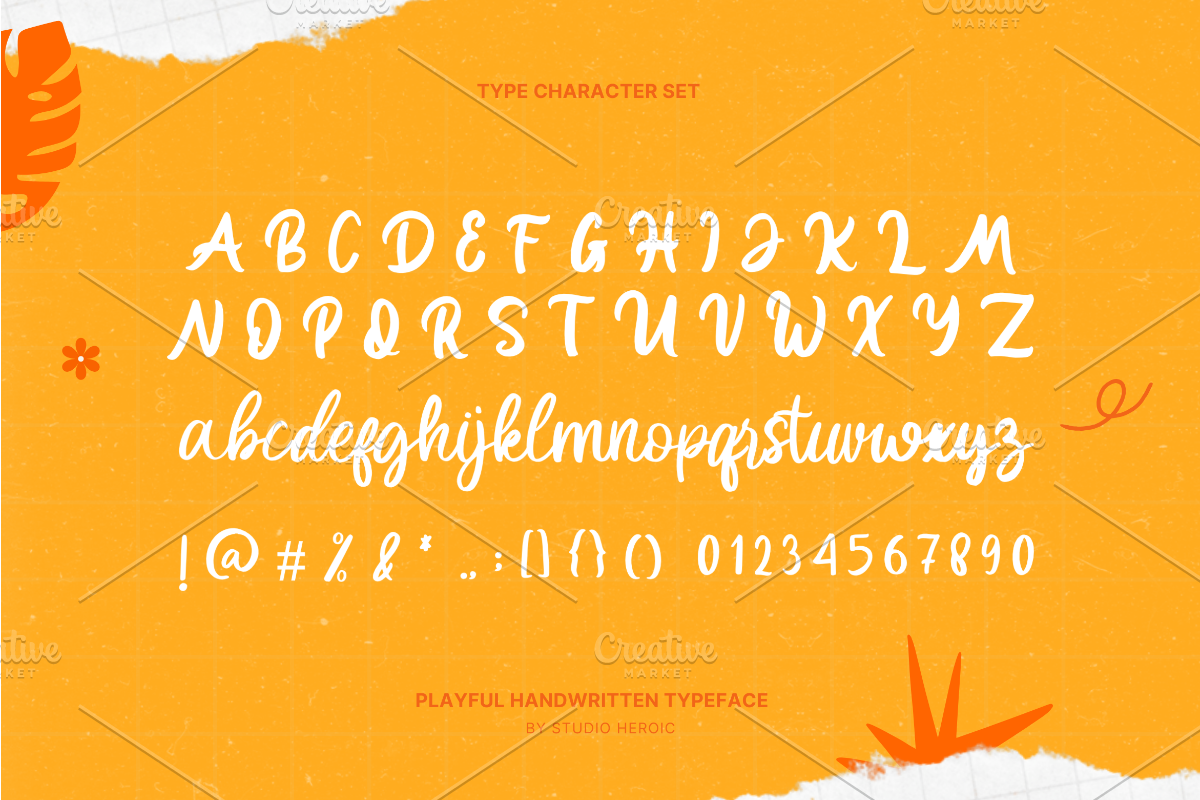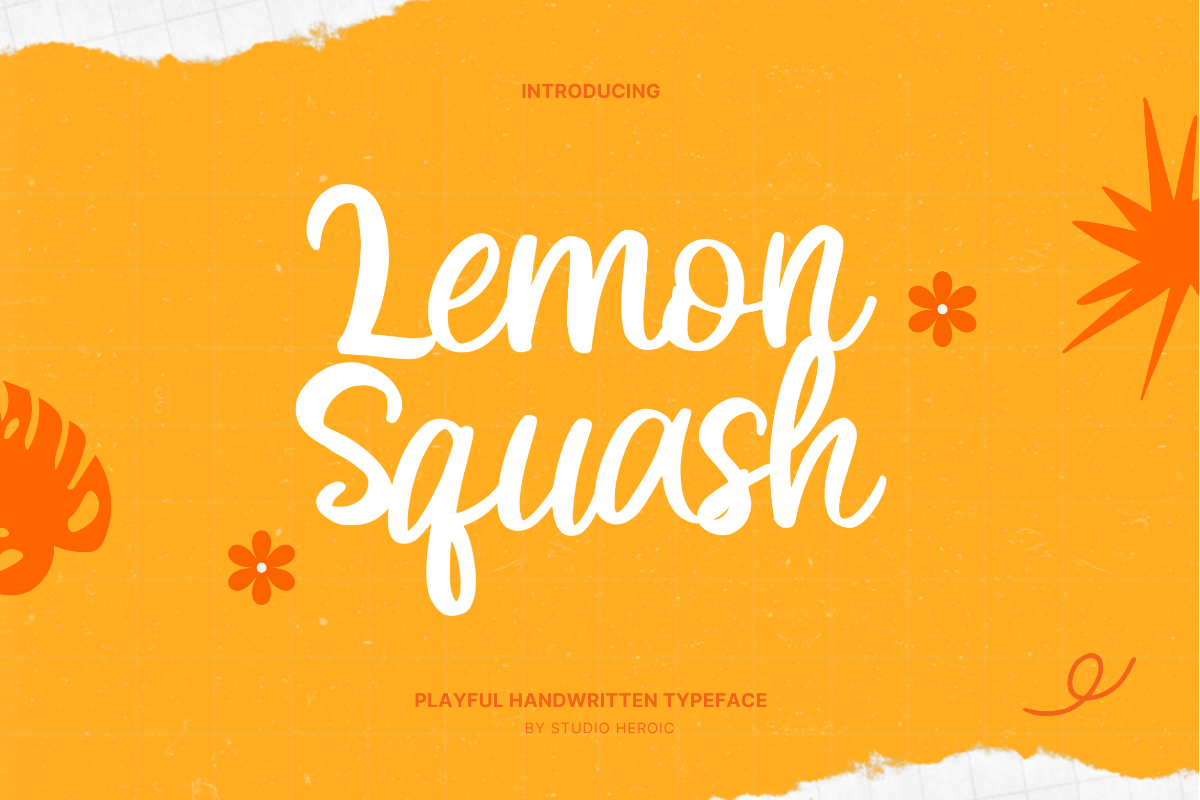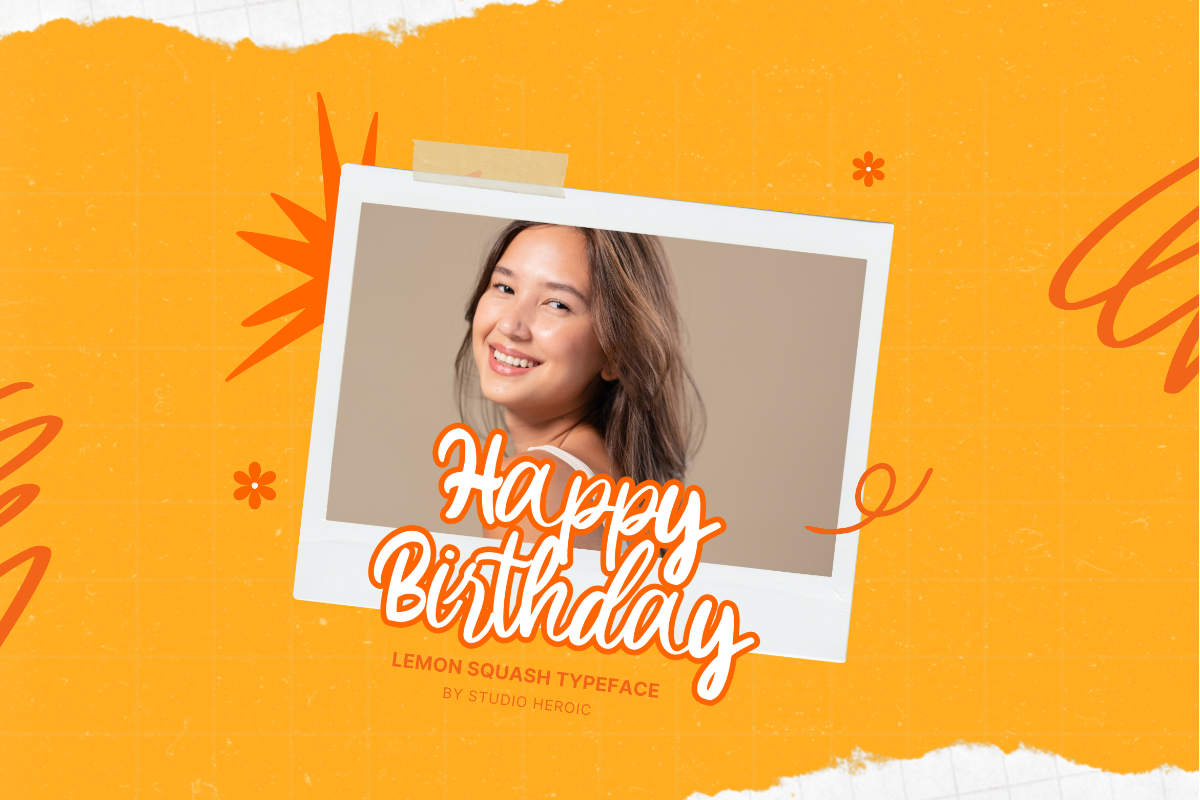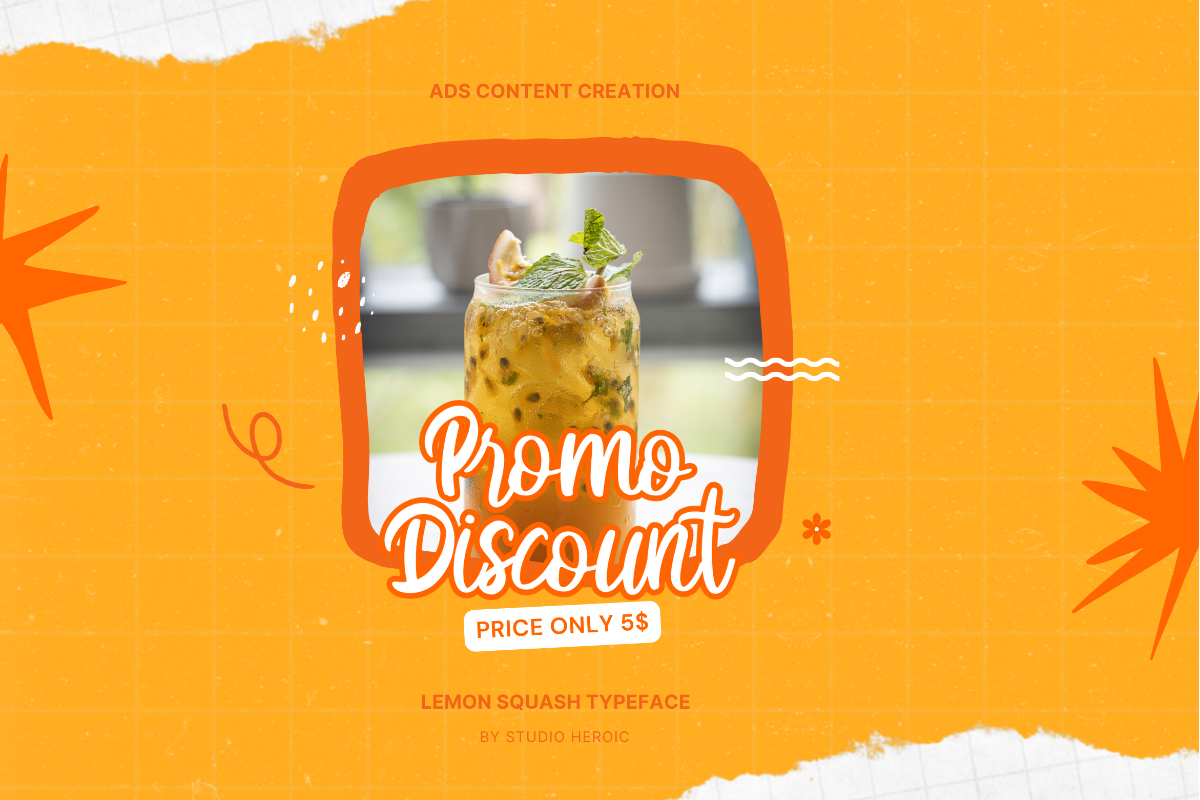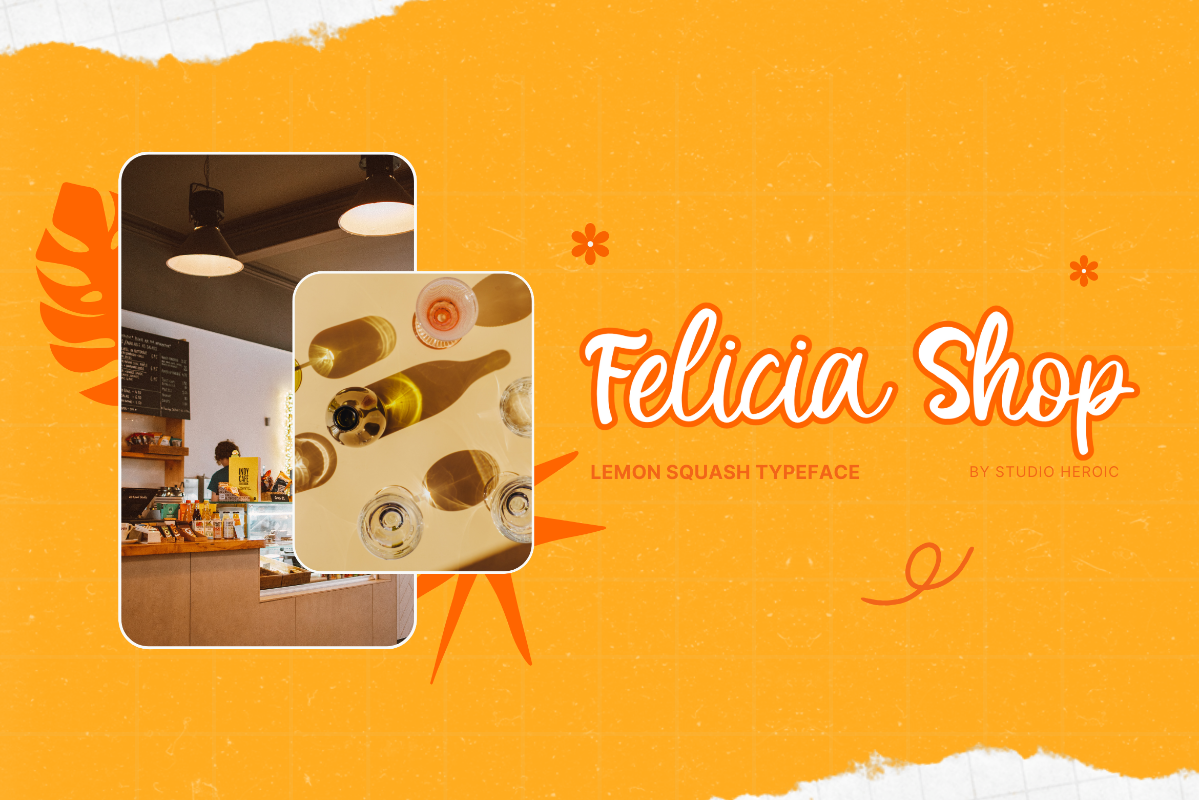
Lemon Squash Handwritten Script Font
Lemon Squash is a playful and expressive handwritten script font designed to bring a natural, personal, and creative touch to your typography projects. With its casual handwritten character and smooth script flow, this font is perfect for designs that need a warm, friendly, and authentic visual style.
Whether you're creating branding, packaging, social media graphics, invitations, or creative merchandise, Lemon Squash adds a charming handwritten personality that helps your designs stand out.
Logo design & branding
Wedding invitations & stationery
Greeting cards
Social media posts
Packaging design
Product labels
T-shirt & apparel design
Posters & flyers
Quotes & lettering
Etsy & handmade product branding
Beauty & lifestyle projects
Creative advertising
Personal branding
Digital products
Playful handwritten script style
Natural and casual lettering appearance
Lemon Squash Handwritten Script Font is an excellent choice for designers looking for a stylish, playful, casual, and authentic handwritten typeface for modern creative projects.